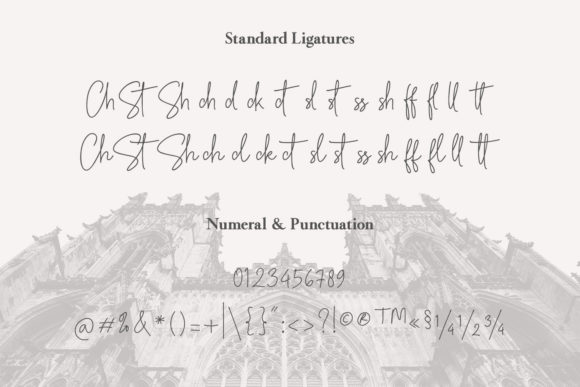
About Rothwell Signature Font
Rothwell Signature is a lovely and calligraphic font that exudes elegance and class. This font is specially crafted for those who need a beautiful and refreshing look to their designs.